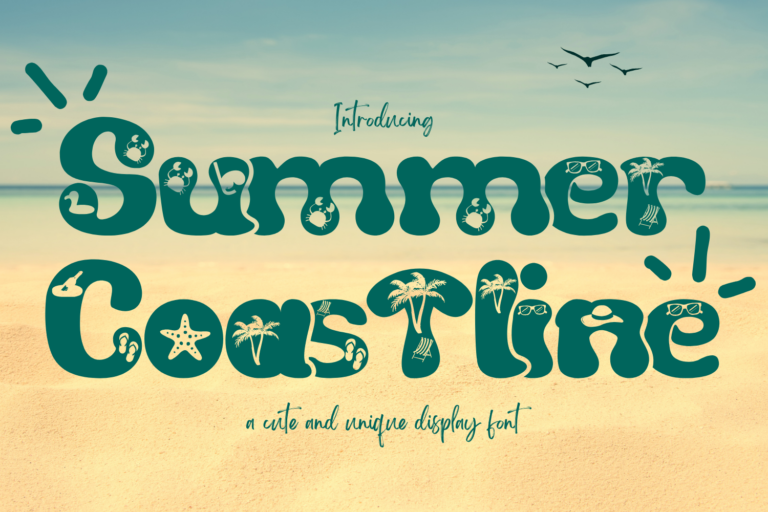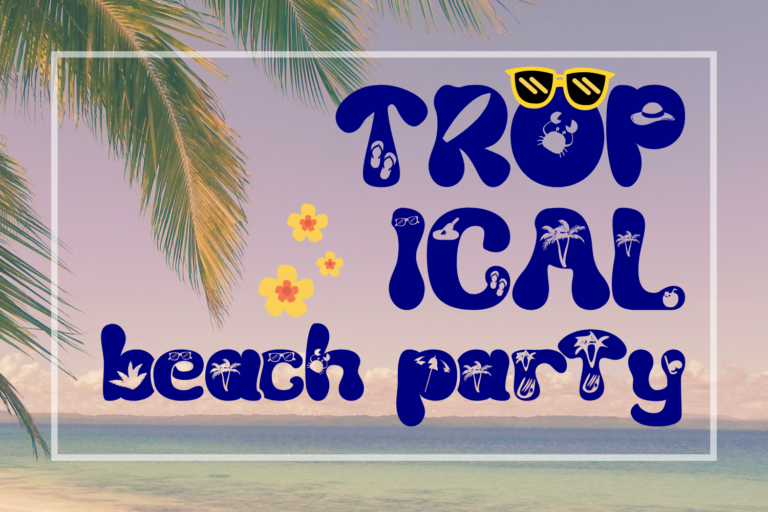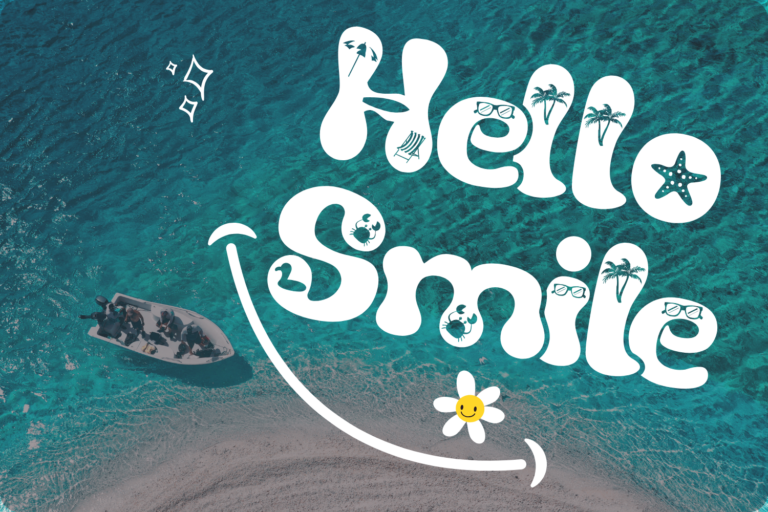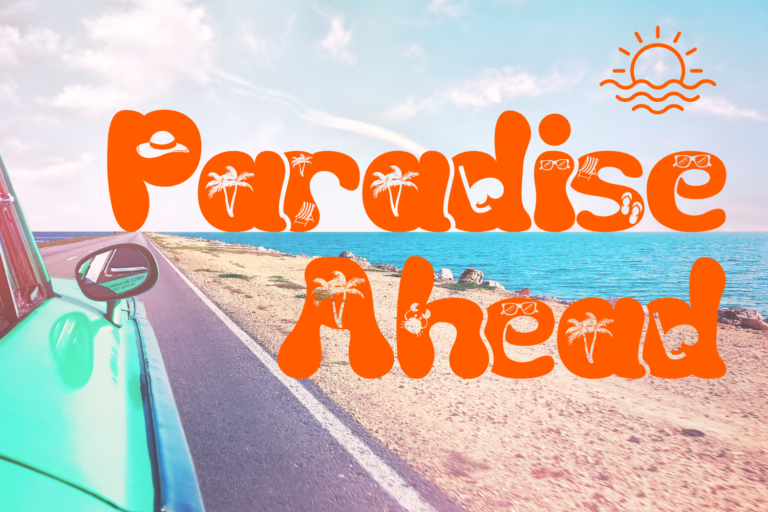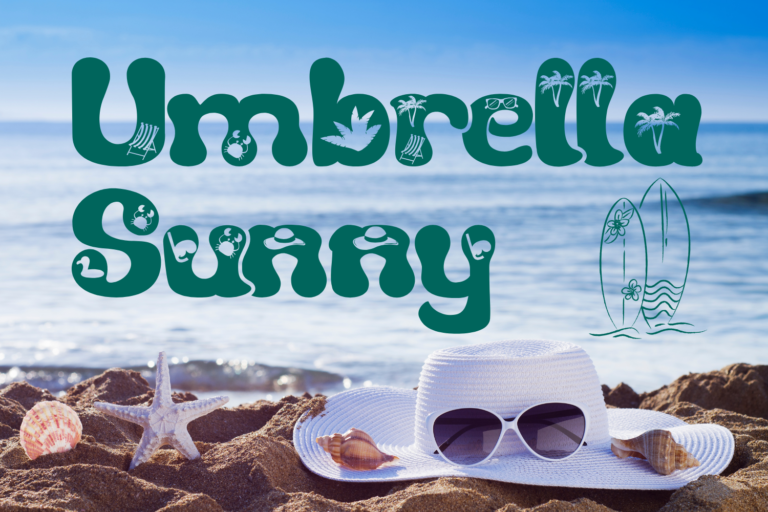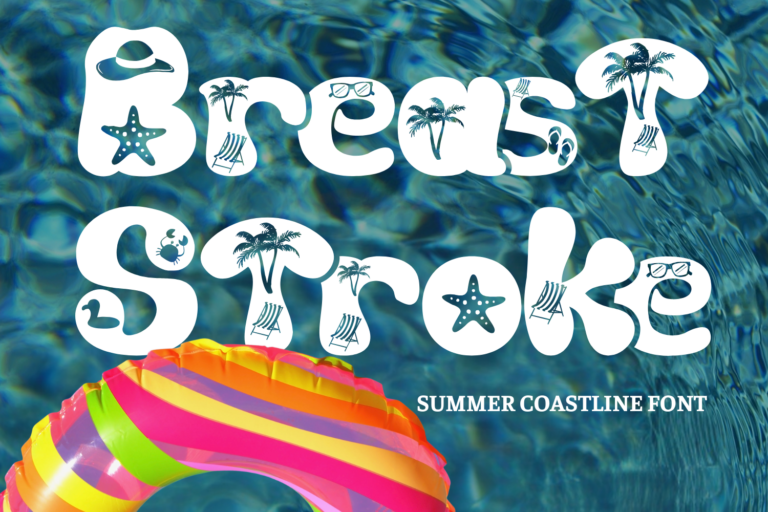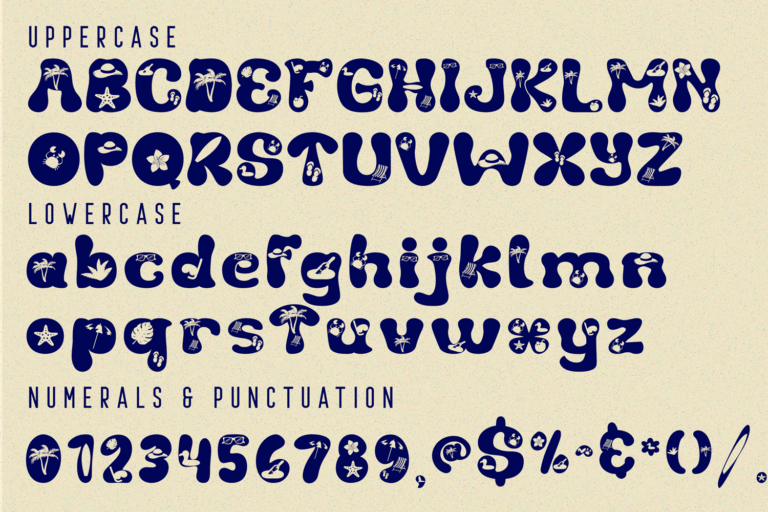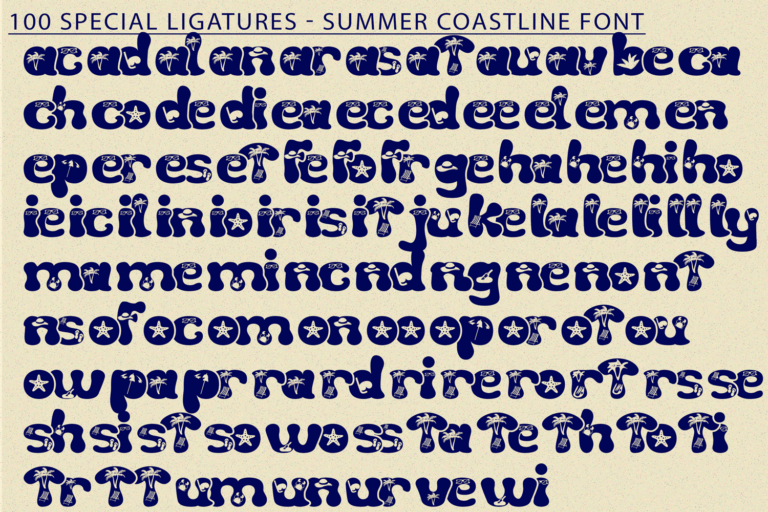
Summer Coastline – Summer Fun Font – A Summer Fun Decorative Display Font, a bold and sunny summer-themed display font that captures the carefree spirit of the beach. With each character packed full of charming illustrations—like flip-flops, crabs, palm trees, sunglasses, and floaties—this font is made to bring vacation vibes to life.
Whether you’re designing for summer events, beach party invitations, tropical packaging, travel ads, or children’s products, Summer Coastline adds a burst of warmth and personality to every letter.
Features:
• Full Uppercase and Lowercase Letters
• ~100 Summer-Themed Special Ligatures
• Accented Characters for multilingual use
ac ad al an ar as at au av be ca ce ch co ct de di ea ec ed ee el em en ep er es et fe fo fr ge ha he hi ho ie ic il in io ir is it ju ke la le li ll lo ly ma me mi nc nd ne ng no nt ns oc of om on oo op or ot ou ow pa pr ra rd re ri ro rs rt se sh si so ss st ta te th ti to tr tt um un ur ve wi wo
Summer Coastline – Summer Fun Font